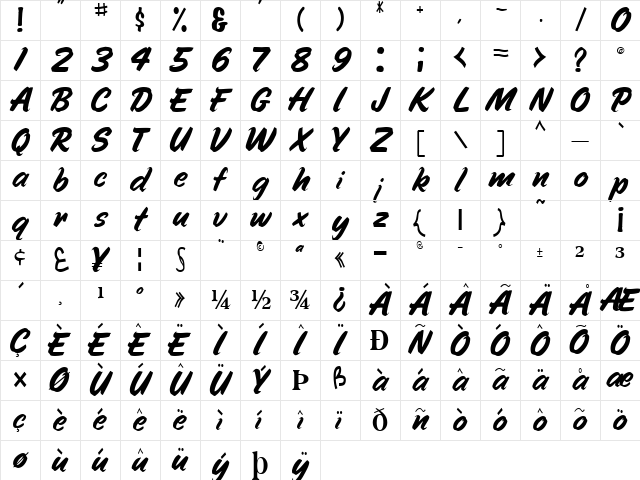
Handy Regular
Design Context for Handy
Handy flows with the natural rhythm of handwritten lettering, making it ideal for designs that call for warmth and personal expression.
Font Pairing: Combine Handy with a simple geometric sans for maximum contrast - the tension between flowing curves and clean structure is a classic typographic pairing.
Pro Tip: Use Handy for short runs of text - names, titles, or taglines. Extended body copy in script faces tires the eye quickly.